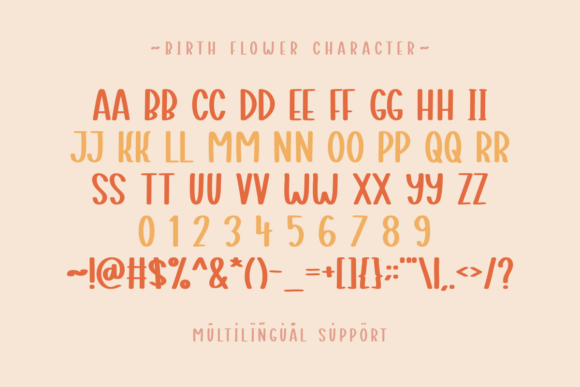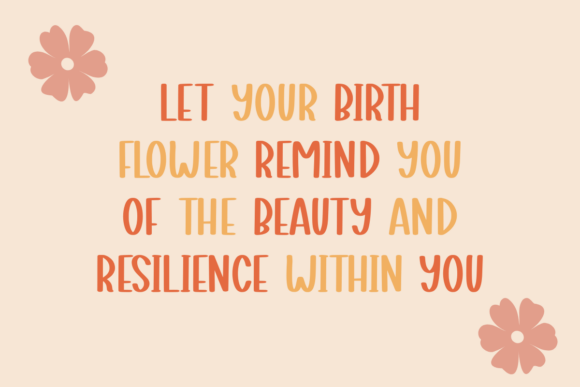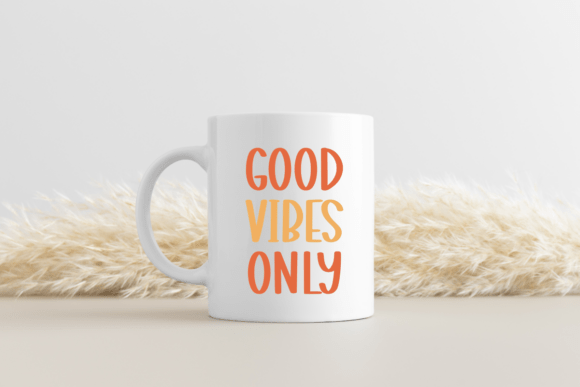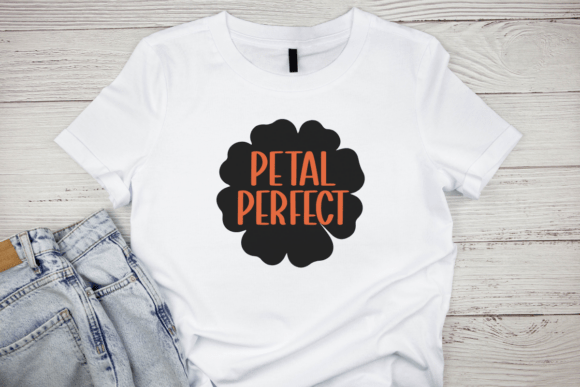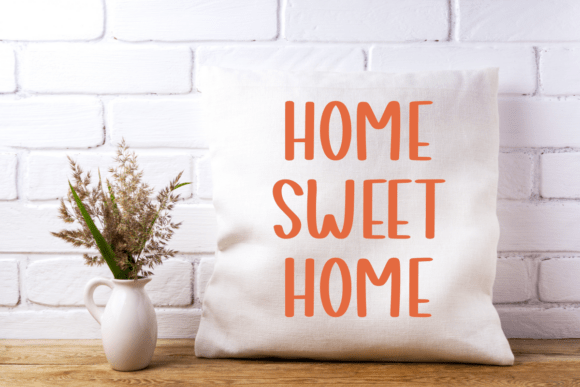
Deck the Halls with Birth Flower Font
It’s that time of the year again – the holiday season is upon us, and designers are scrambling to create the perfect festive designs. Whether it’s a Christmas card, a holiday invitation, or a social media graphic, the key to making it stand out is a font that captures the spirit of the season. As I sat at my desk, surrounded by twinkling lights and the sound of holiday music, I knew exactly what I needed to get into the mood: a font that would bring a touch of joy and whimsy to my designs.
That’s when I stumbled upon Birth Flower Font – a delightful sans serif font that embodies the playful essence of the holiday season. With its bold lines and festive curves, this font is perfect for adding a dash of holiday cheer to your designs. Whether you’re a seasoned designer or a DIY enthusiast, Birth Flower Font is a valuable addition to your toolkit, allowing you to create unique and eye-catching holiday graphics that will leave a lasting impression.
Birth Flower Font Key Features
- Font Family: Birth Flower Font is a unique, hand-drawn font designed to represent different birth flowers for each month of the year.
- Unique Characteristics: Features intricate, hand-drawn illustrations of birth flowers, making it a perfect choice for creative projects and designs.
- Font Style: Available in regular and bold weights, providing versatility for various design needs.
Review of Birth Flower Font
Overall, I’m quite impressed with the Birth Flower Font. It has a whimsical charm that’s perfect for designers looking to add a touch of personality to their projects.
- ✨ Beautiful, hand-drawn design elements that bring a unique touch to text
- ✨ Highly customizable, allowing designers to adjust font weights, sizes, and colors to suit their needs
- ✨ Supports a wide range of languages, making it suitable for international projects
- ⚠️ Limited compatibility with older systems, which may cause issues with font rendering
- ⚠️ May not be suitable for projects requiring a high level of precision, as the font’s hand-drawn nature can result in some inconsistencies
The Birth Flower Font is a great choice for designers looking to add a touch of whimsy to their projects. While it may have some limitations, its unique design elements and high level of customization make it a valuable addition to any design library. I’d definitely recommend it for projects that require a playful, hand-drawn look.
Tips for Getting the Most Out of the Birth Flower Font
The Birth Flower Font is a versatile and elegant font that can be used for a variety of applications, including:
- Birth announcements and baby showers
- Personalized gifts and cards
- Special occasion decorations and signage
Some additional tips for getting the most out of the Birth Flower Font include:
- Combine the Birth Flower Font with other elegant fonts for a sophisticated look.
- Use the font to create a cohesive brand identity for your business
Alternatives to Birth Flower Font
Carolyna Pro is a beautiful, elegant script font designed by Natalya Shaliakina. It features beautiful connections between letters and a romantic feel, making it perfect for wedding invitations, birth announcements, and other special occasions. Compared to Birth Flower Font, Carolyna Pro has a more refined and sophisticated look, making it suitable for high-end designs.
Great Vibes is a modern, cursive font designed by HandmadeFonts. It features a fun and playful feel, making it perfect for birthday parties, weddings, and other celebrations. Compared to Birth Flower Font, Great Vibes has a more energetic and youthful vibe, making it suitable for designs that need a bit of excitement.